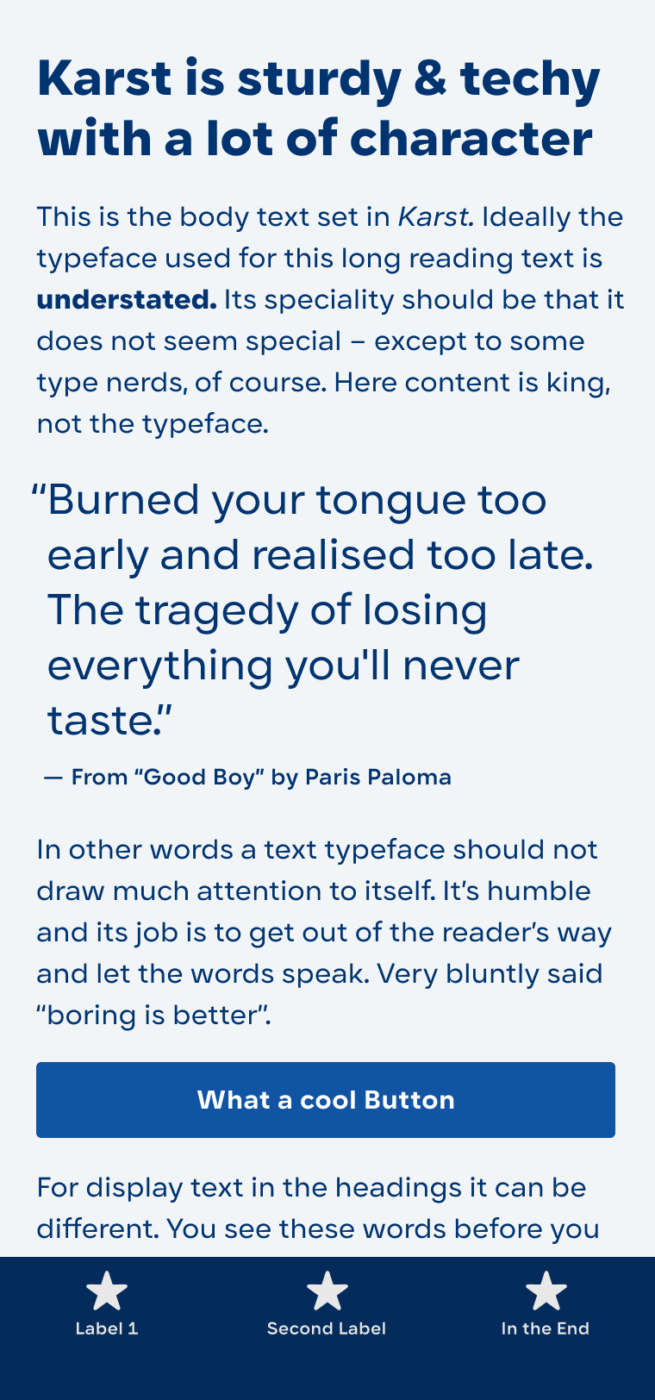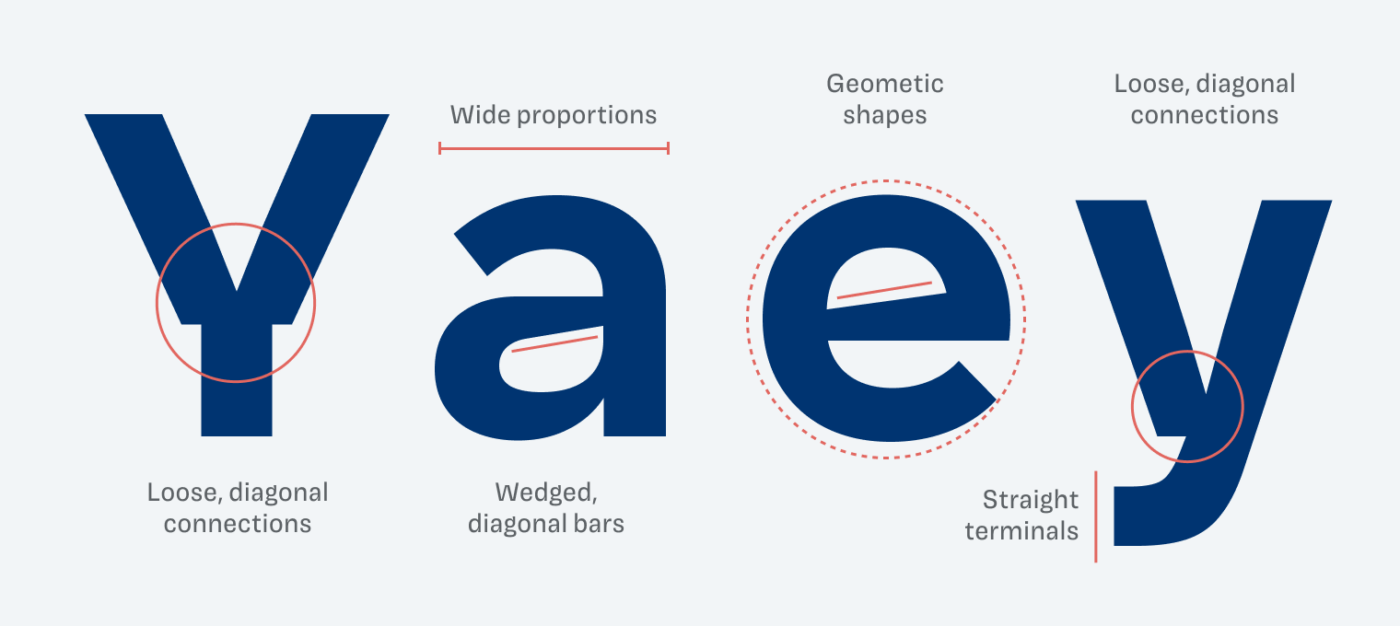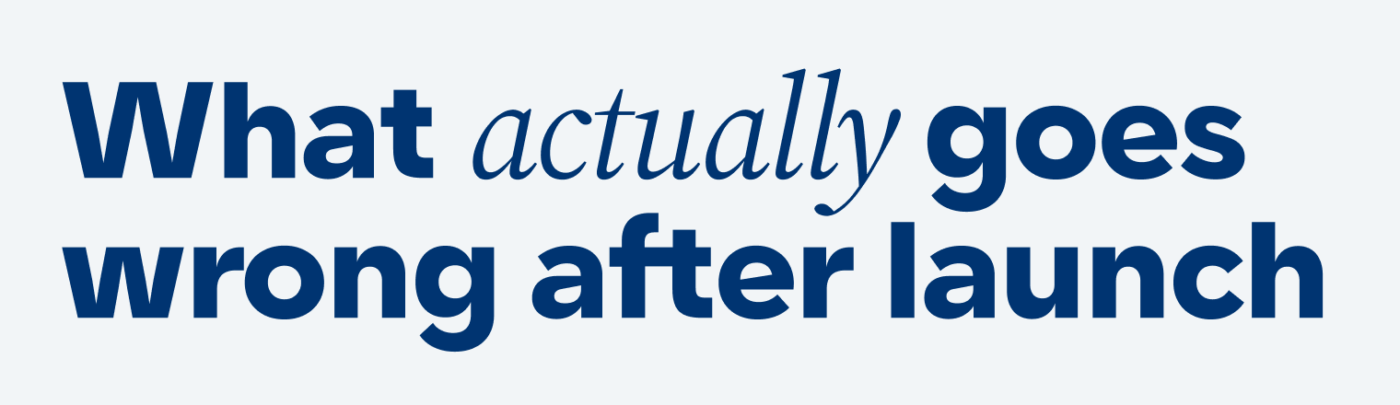
Sans-serif typeface
from Type Forward
designed by Mirela Belova, Stan Partalev
Variable Font
1 axis: Weight
18 Styles
9 Weights: Hairline to Black
with matching italics
Additional Scripts
Cyrillic
Best for
• Headings (display text)
• Long reading text (body text)
• User Interfaces (functional text)
Specialty
A geometric sans-serif with wide proportions and sharp diagonal details. Versatile from Hairline to Black, strong in UI and bold headlines.
My Karst Font Review
I’ve been wanting to review this font for ages. Karst is a geometric sans-serif typeface with a twist. It comes with wide proportions, sharp cuts, and clean shapes, all spiced up with interesting diagonals that give it wonderful personality.
The striking details disappear at smaller sizes. Karst proves to be versatile and durable even below 14 px. At larger sizes, it becomes quite space-consuming due to its wide proportions.
Karst shows a vast range of styles that works across various sizes
You can see how these small decisions stem from carefully crafted details – like the lovely wedge-like angled bars in the lowercase ‘a’ and ‘e’. I also love how the diagonals of letters like ‘Y’ and ‘w’ are so loosely connected that you can really see how they’re constructed. To me, this makes them feel honest and interesting at the same time.
Discovering Karst’s details. See how loosely the diagonals connect.
Karst works extremely well in smaller sizes, making it an ideal candidate for UI design. The wide range of styles, from delicate Hairline to bombastic Black, really gives you room to express. Recently, I tried it out in a web design for a friend, using it in the headings. Paired with elegant Source Serif, it truly becomes an eye-catcher.
I used Karst for striking headings in a recent design. Look at that lovely ft ligature!
Font Pairings with Karst
Karst is a geometric, linear, sans-serif typeface. Here are some interesting font pairing for body text or headings.